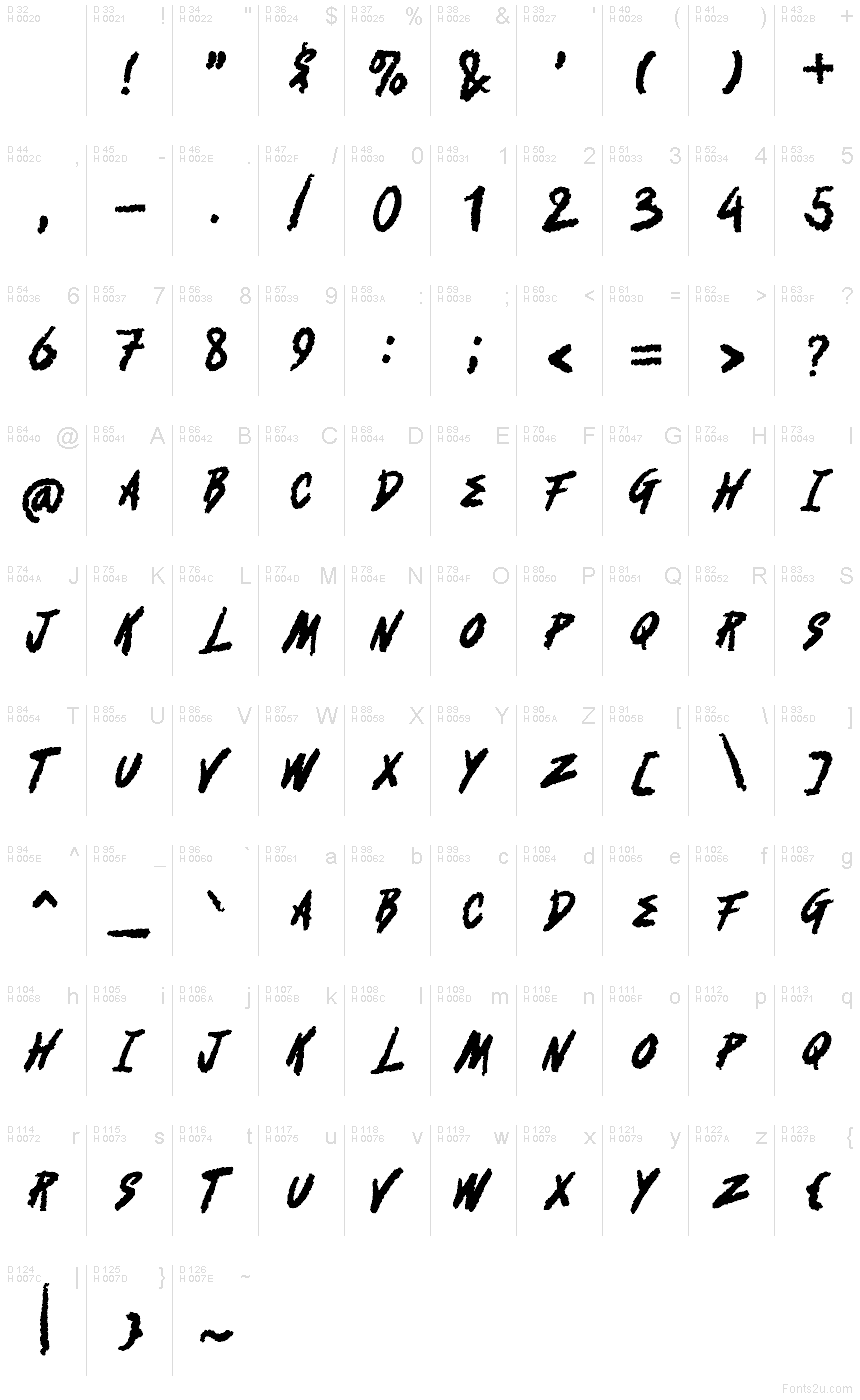
Fearost
Fearost font by Dhabee Studio is a free scary brush font that lunges off the page. Its ragged, slashed strokes and gritty ink build a tense, hand-made texture—like paint dragged fast across a rough wall. The letters lean forward with nervous energy, delivering instant menace without gimmicks, just raw, smeared bristle marks that read loud and clear at a glance.
Using Fearost, headlines snap into horror mode for movie posters, thriller book covers, haunted house flyers, game titles, YouTube thumbnails, and event merch. This free font thrives big and close, so scale it up and tighten the spacing slightly. Pair with a clean, condensed sans for supporting text to keep the chaos controlled.